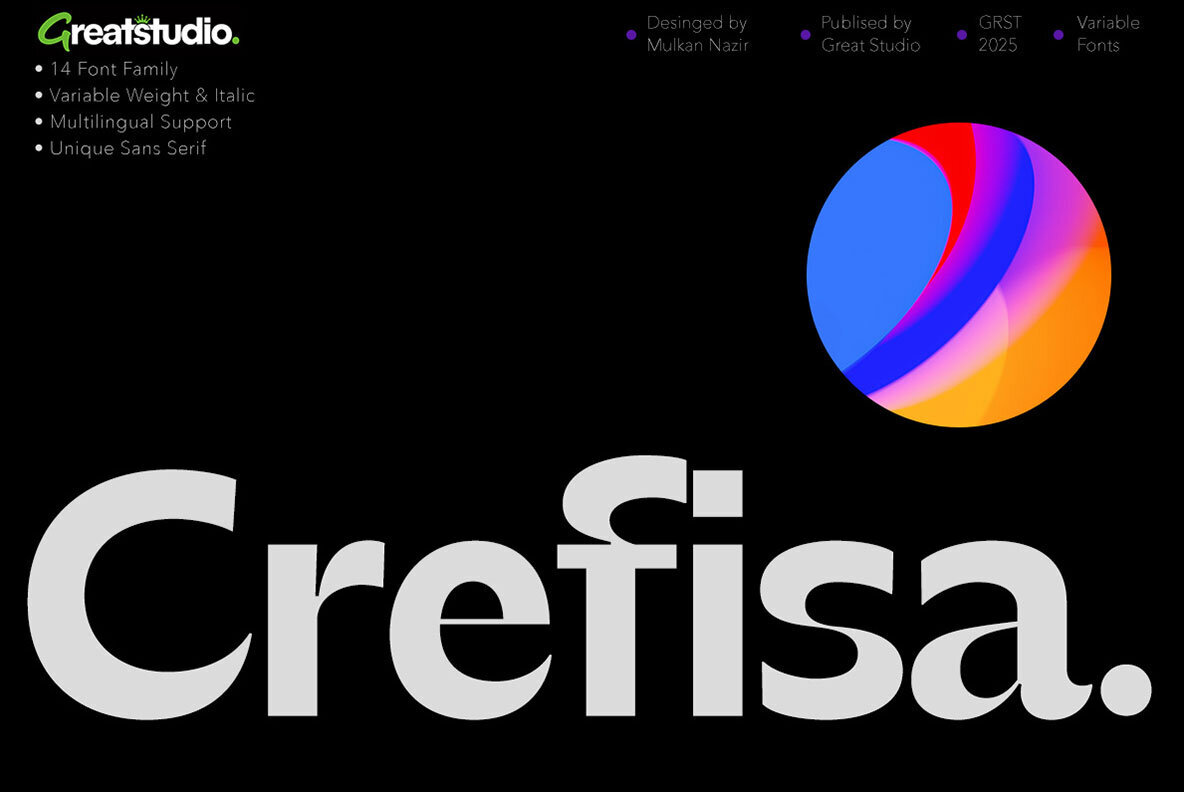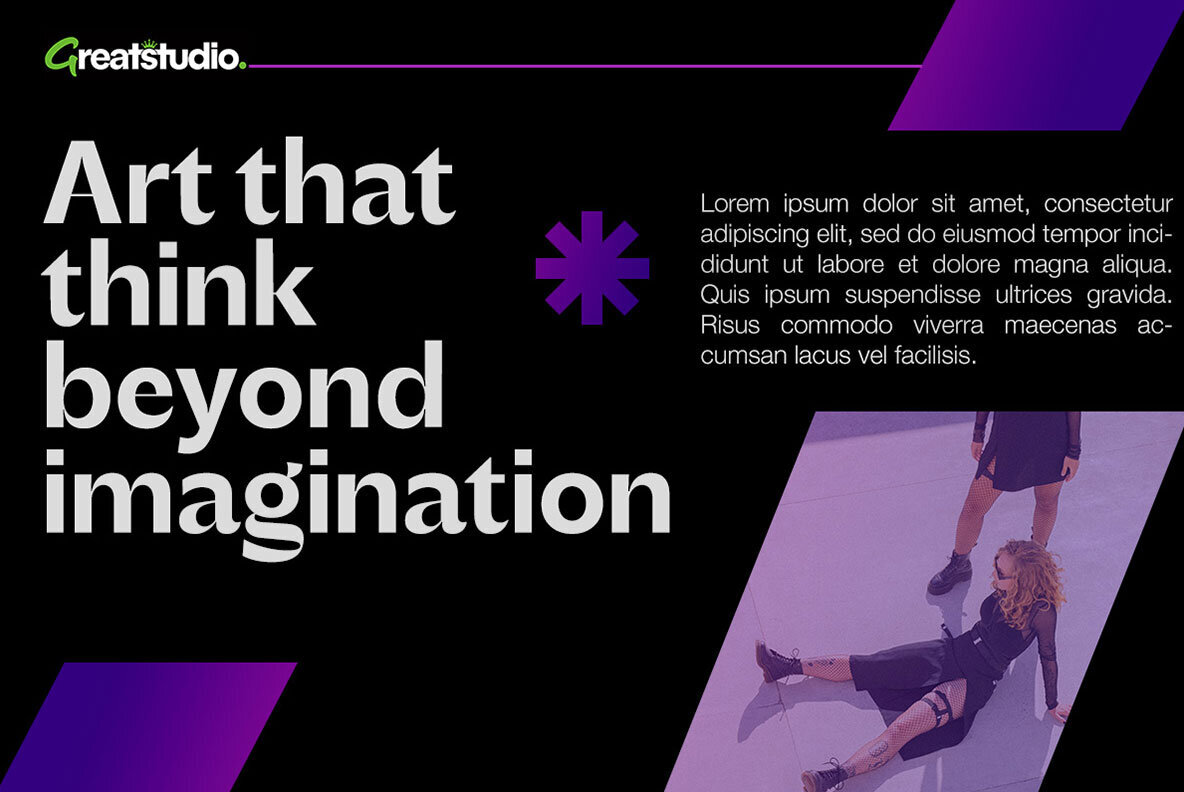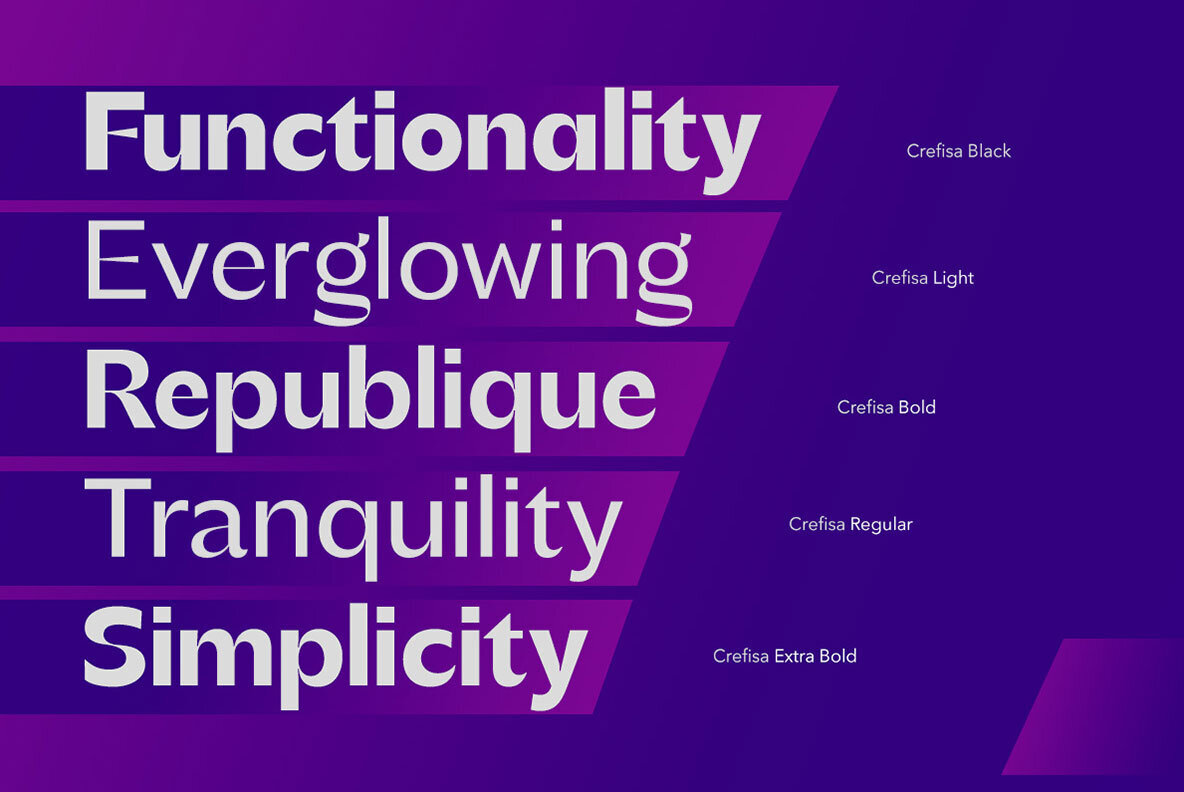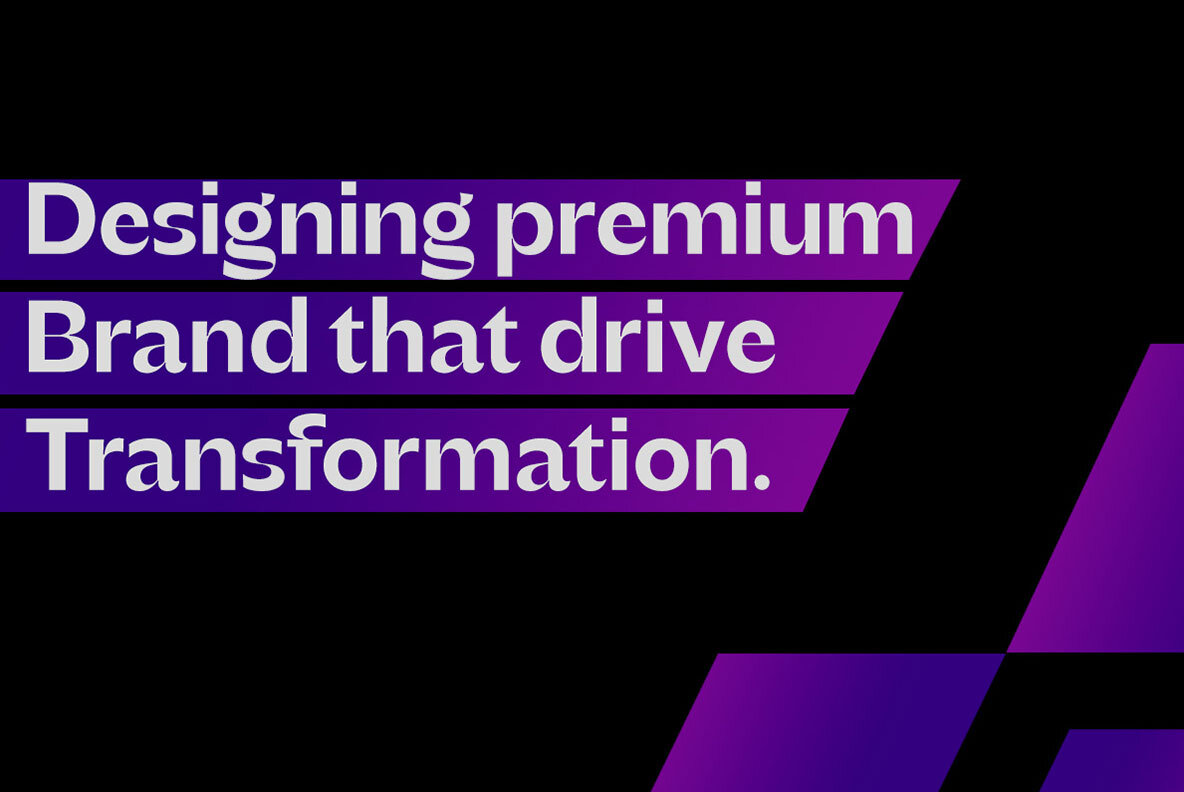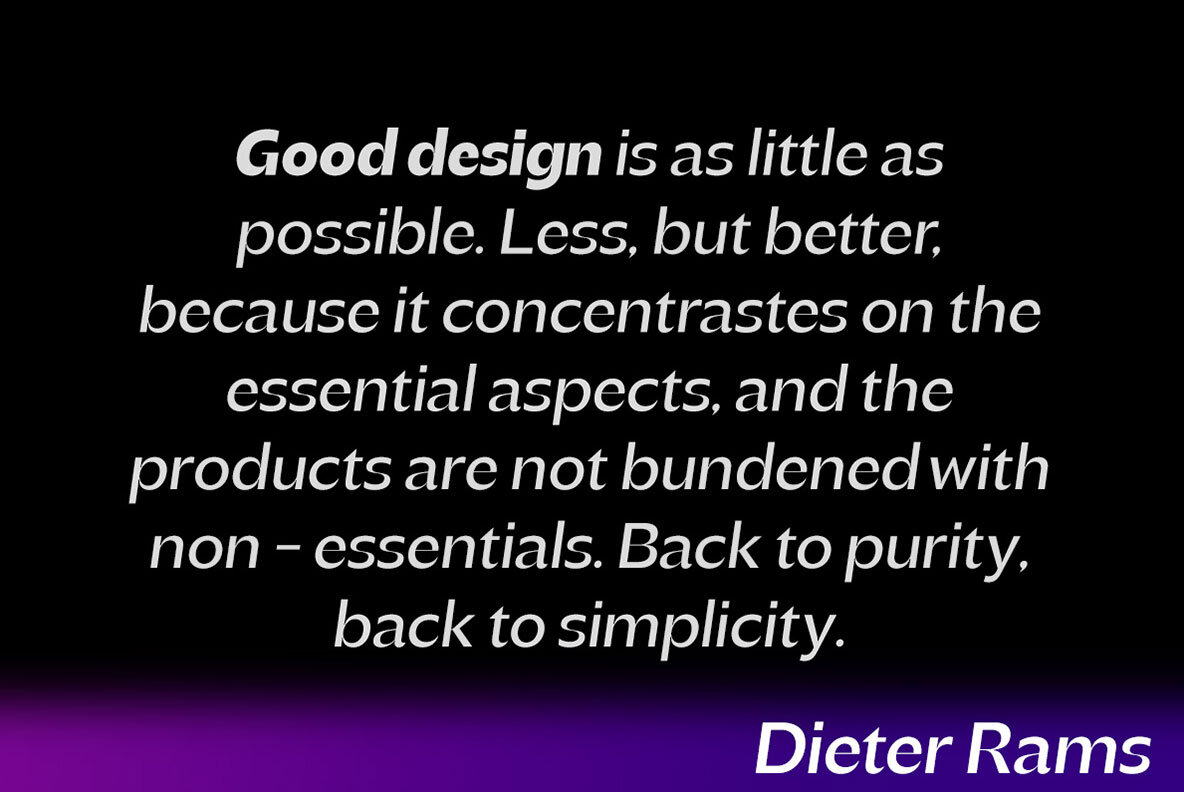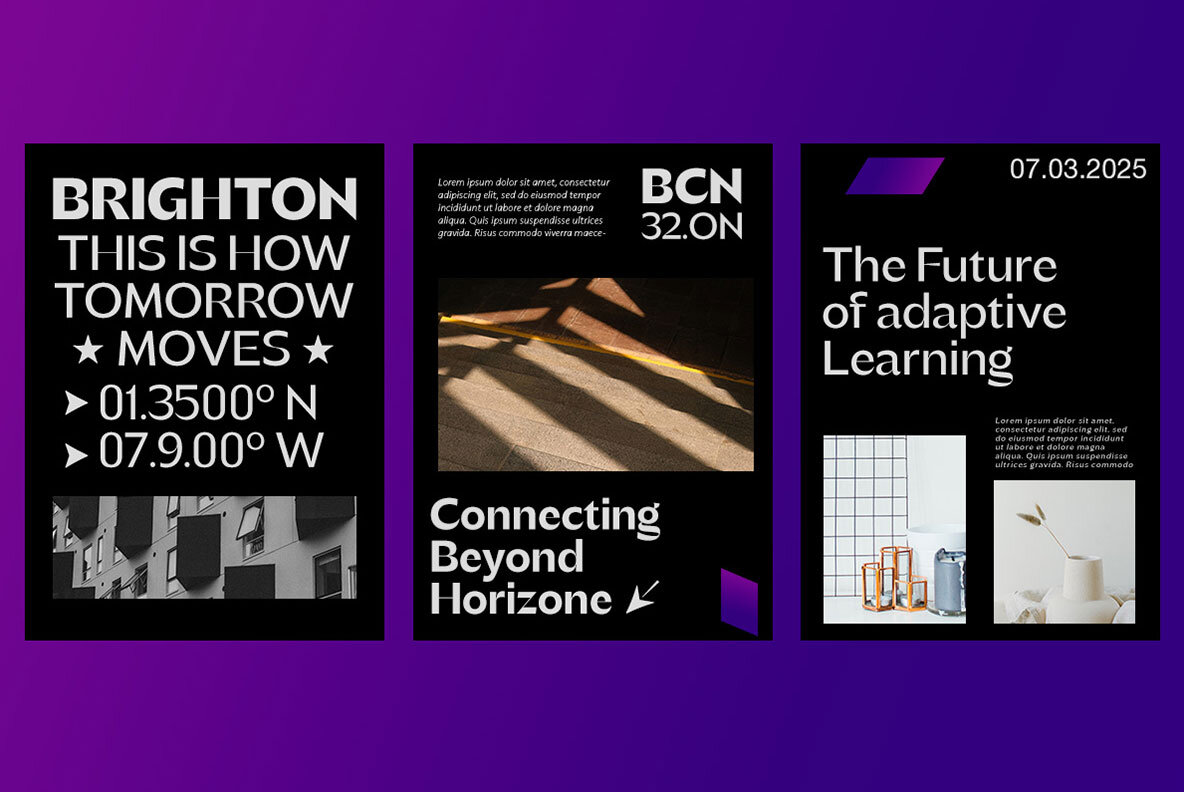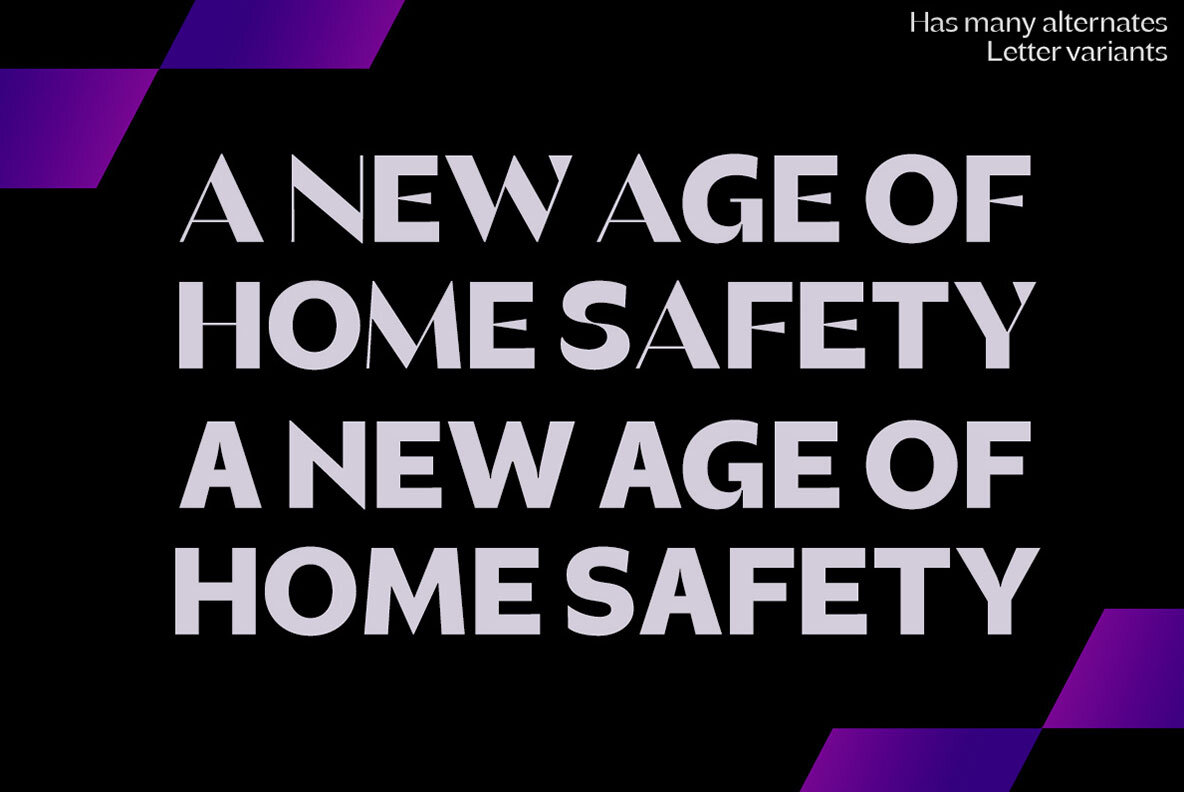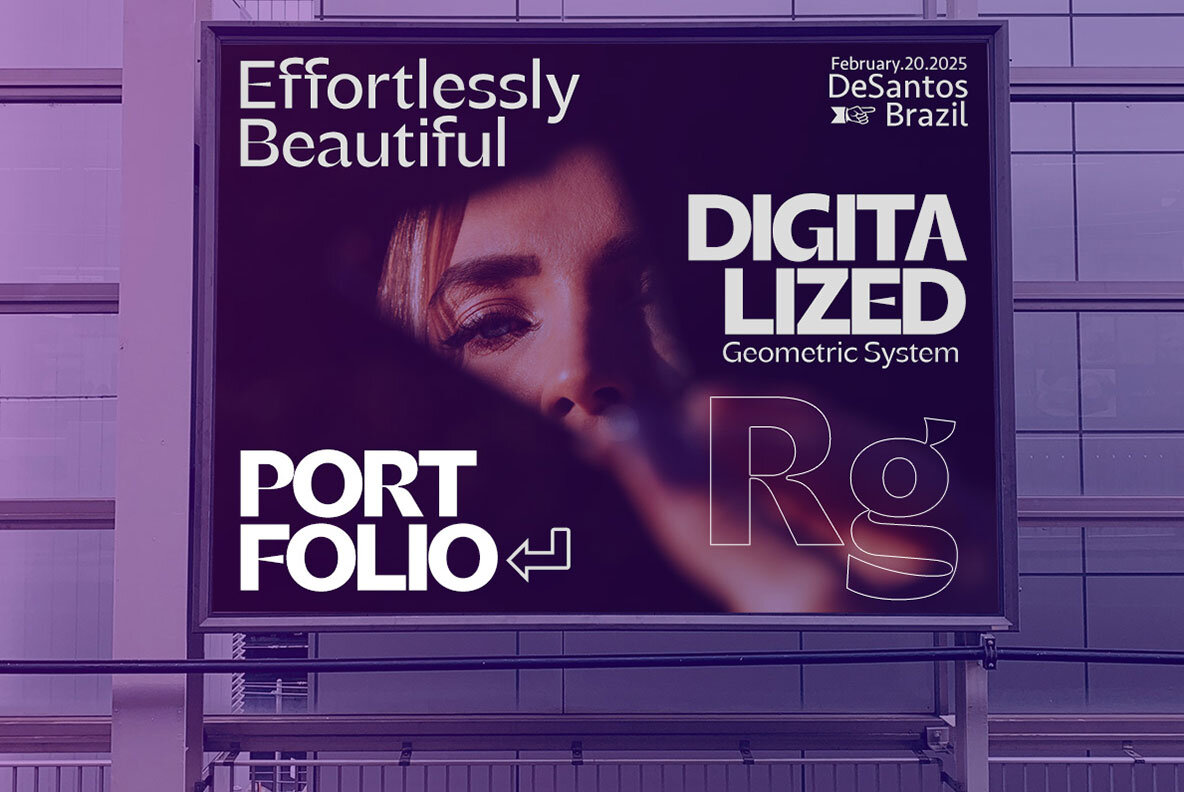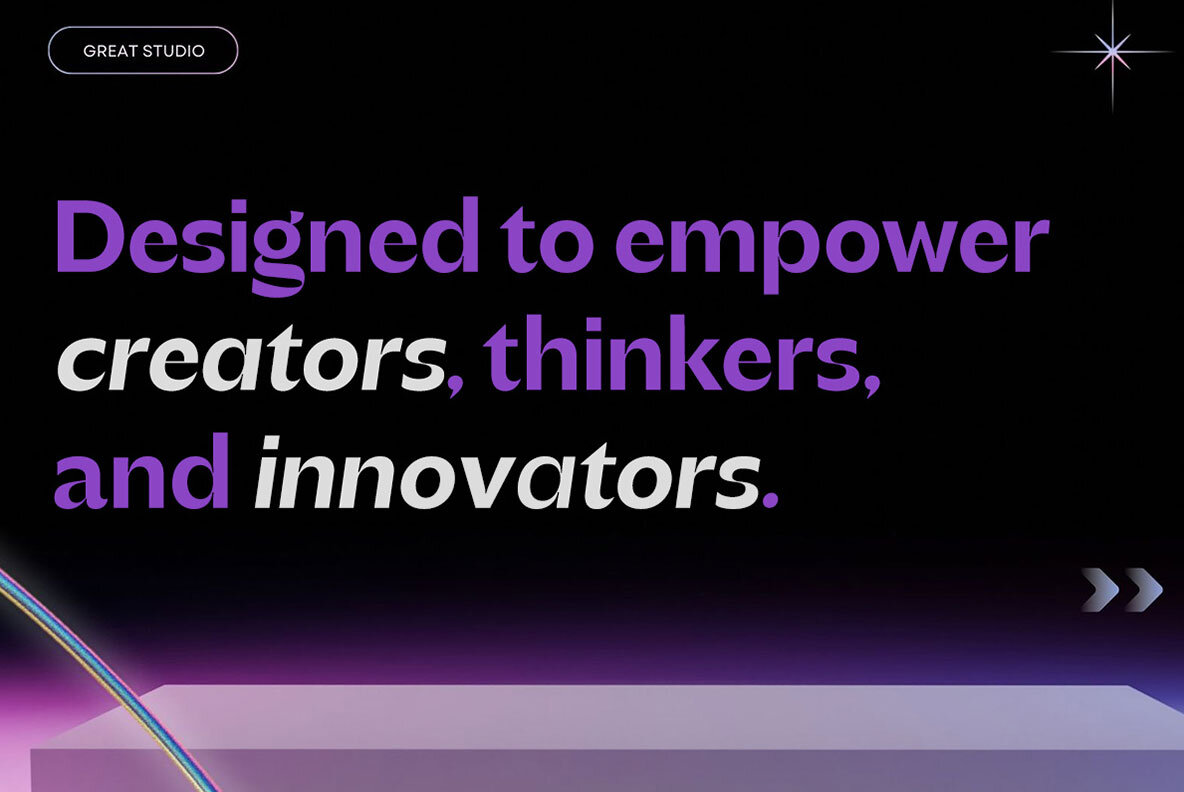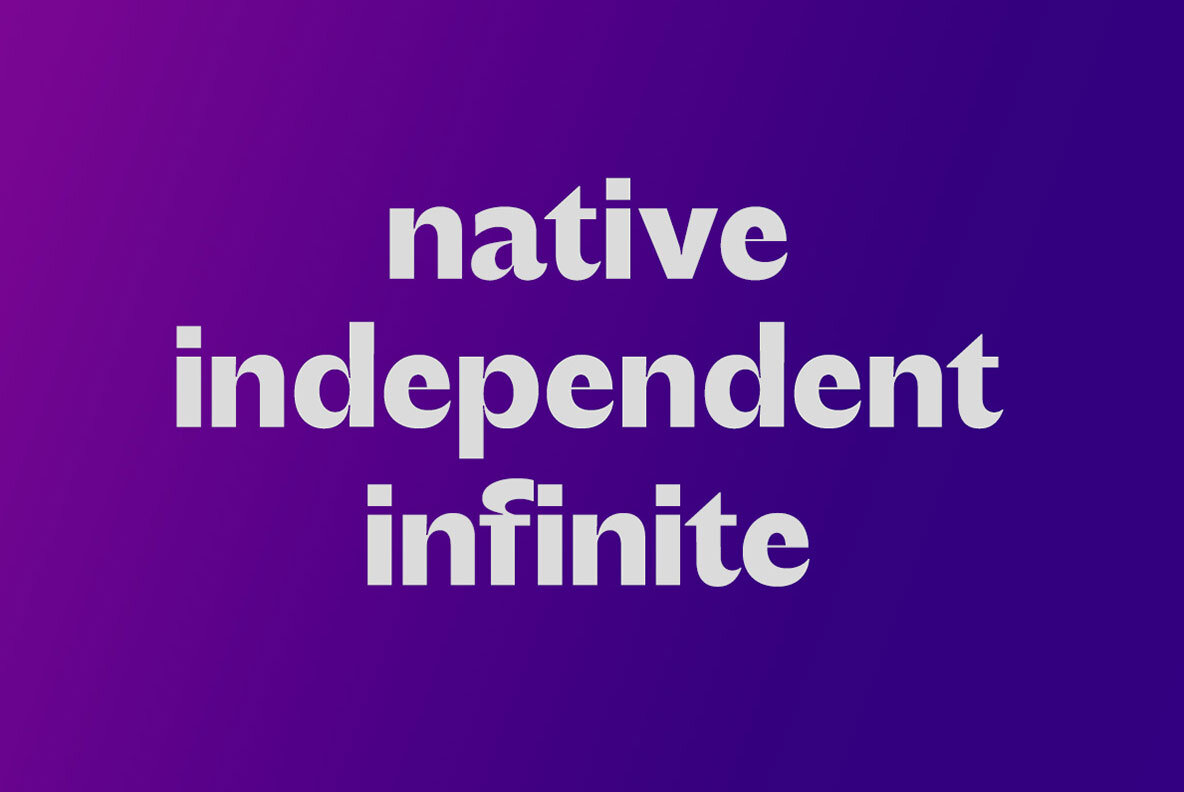
Crefisa Font
Crefisa is a sans-serif font family designed in a unique style inspired by international styles but interpreted through a contemporary lens and a modern sans-serif typeface that blends elegance and professionalism through clean, precise lines and balanced proportions. The design features sleek and contemporary letterforms with consistent stroke thickness and fine details, making it highly legible and visually appealing across digital and print media. The Crefisa font family offers seven weights, ranging from light to Black included Variable font, along with true italics to provide added flexibility for various design projects. Its strong yet approachable character makes it suitable for branding, logo design, advertising, and editorial work, as well as for use on websites and digital content. Designed with functionality and aesthetics in mind, Crefisa strikes the ideal balance between sophistication and simplicity, making it a versatile choice for projects that require clarity, modernity, and visual appeal